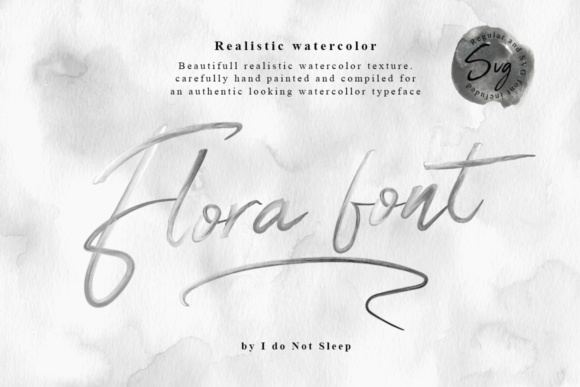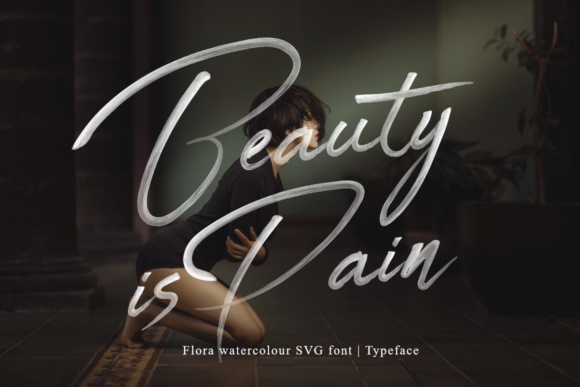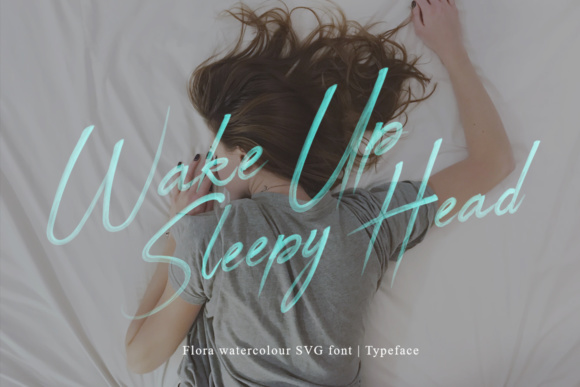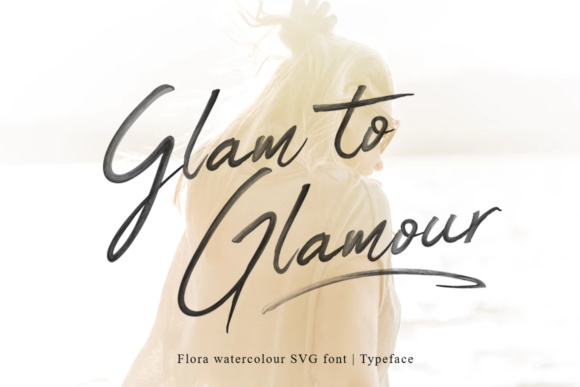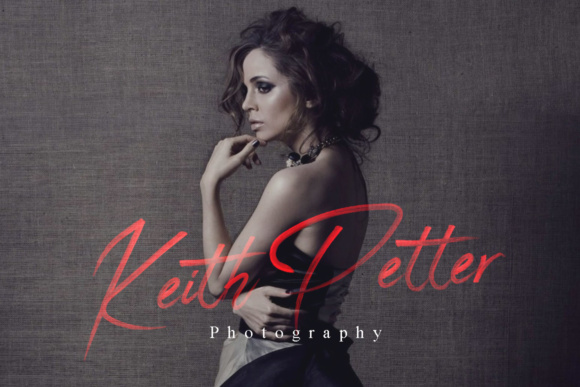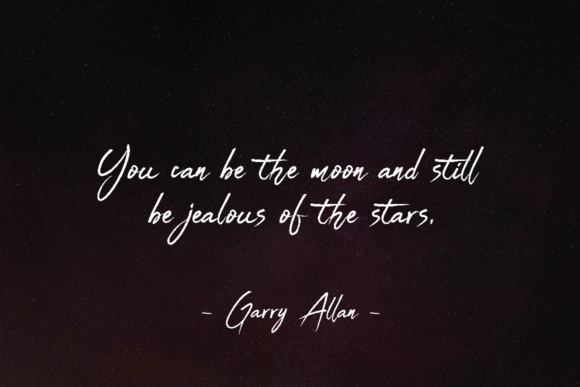
The Quest for the Perfect Font: Discovering Flora
I still remember the design project that led me to Flora, a stunning brush font that has since become a staple in my creative toolkit. I was working on a whimsical branding project for a boutique florist, and I needed a font that would capture the playful, organic feel of their brand. After hours of scrolling through font websites and trying out various options, I stumbled upon Flora – and it was love at first sight! 💕
First Impressions: What I Love About Flora
Flora comes in two versions: a regular font and an SVG version. Here are some things that immediately won me over:
- ✨ Unique, hand-brushed feel that’s perfect for creative projects
- ✅ Regular and SVG versions provide flexibility for different design needs
- 🌟 Support for OpenType features, including alternate letters and ligatures
Honest Review: A Few Quirks to Consider
While Flora has become a favorite, it’s not without its limitations. Here are a few things to keep in mind:
- Use the font for headings, titles, and other design elements where you want a hand-brushed feel
The Story Behind Flora
While I couldn’t find any information on the designer’s personal story, it’s clear that Flora was created with a passion for beautiful, hand-brushed typography. The font’s unique feel and attention to detail make it a standout in any design project.
| Font Name | Flora Font |
| Author | I Do Not Sleep |
| Does Flora support OpenType features? | Yes, Flora supports OpenType features, including alternate letters, ligatures, and stylistic alternates. |